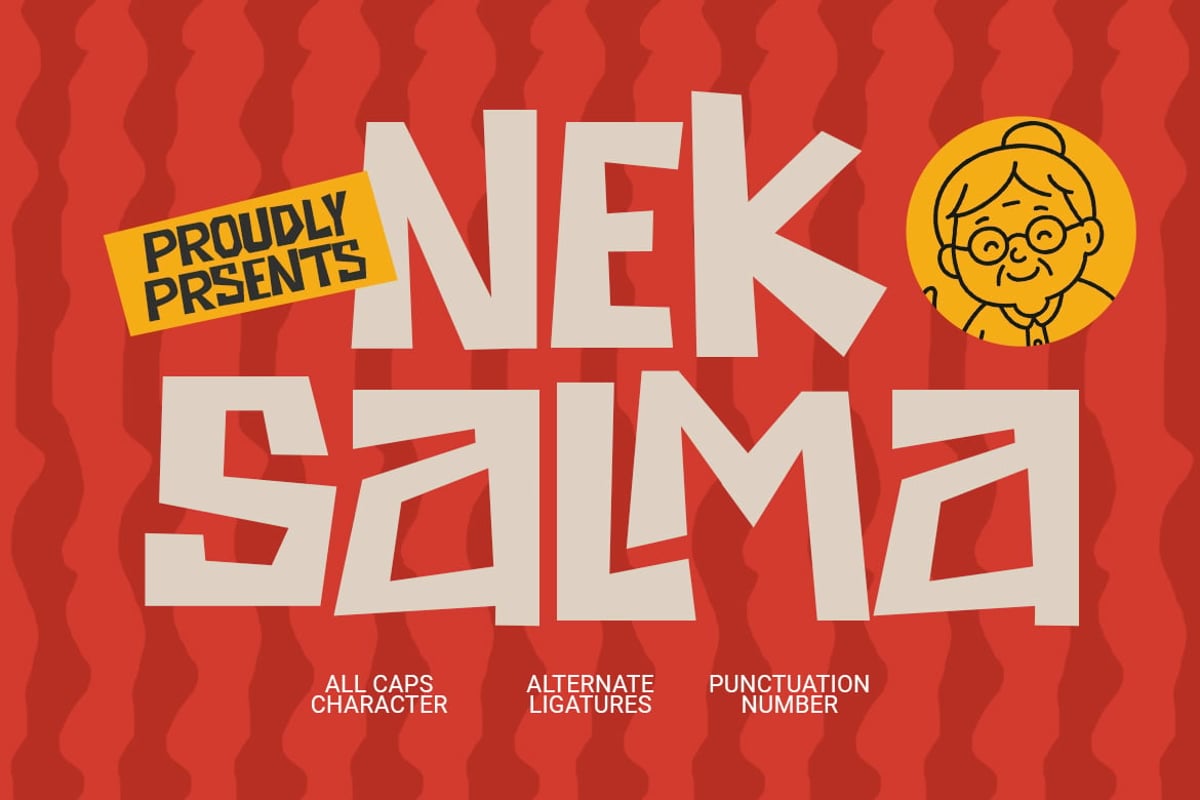
Nek Salma - Playful display font
Bring cheerful retro cartoon vibes to your designs with this bold, quirky display typeface. Nek Salma draws inspiration from vintage cartoons, featuring geometric shapes that radiate humor and friendliness. This playful font transforms ordinary text into eye-catching displays that capture attention and spark joy. Perfect for children's book covers, product packaging, comic strips, promotional posters, and fun branding projects that need personality and charm. Available formats include OTF, TTF, ...